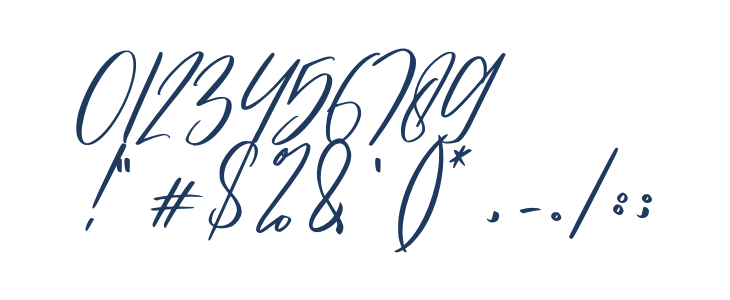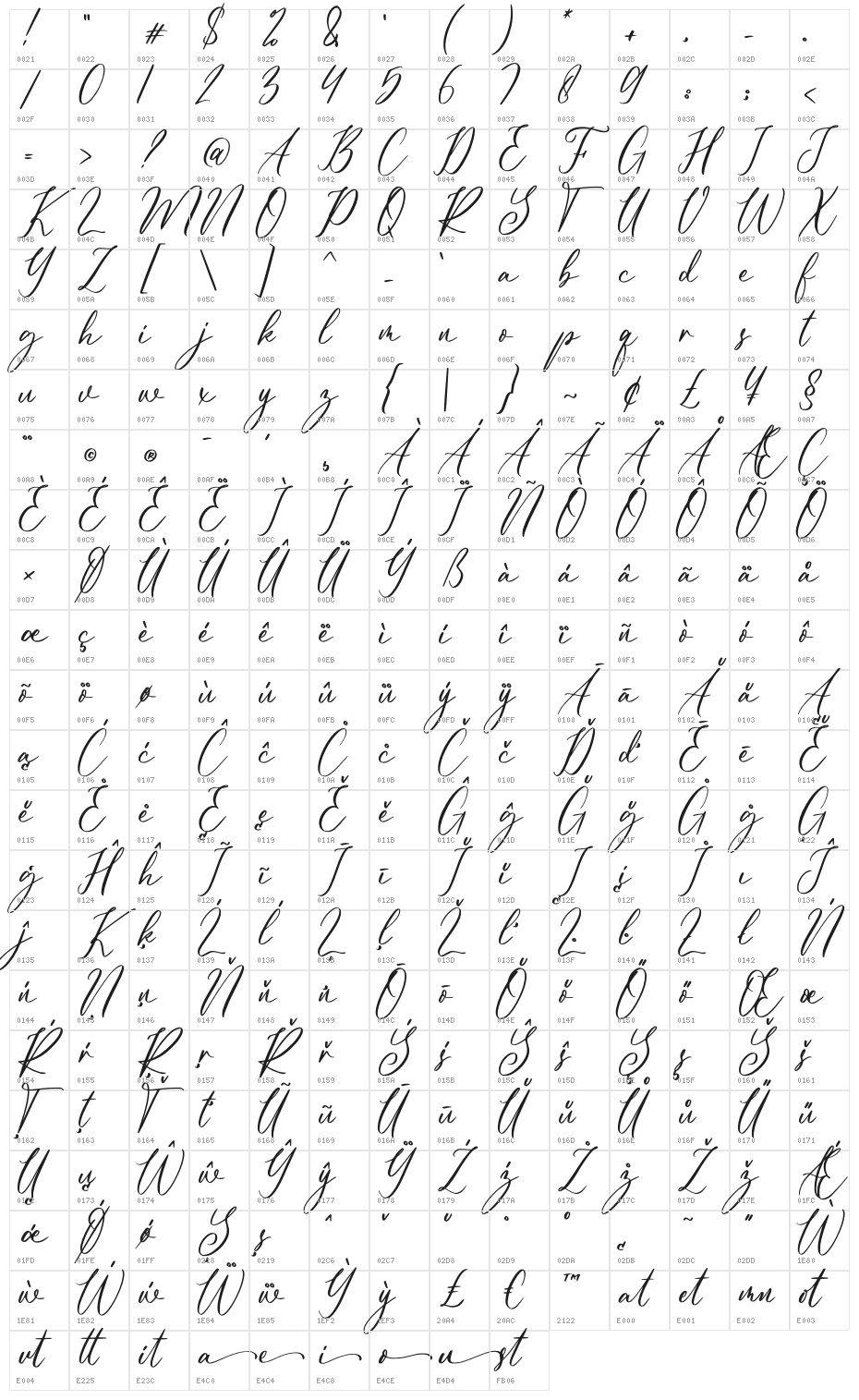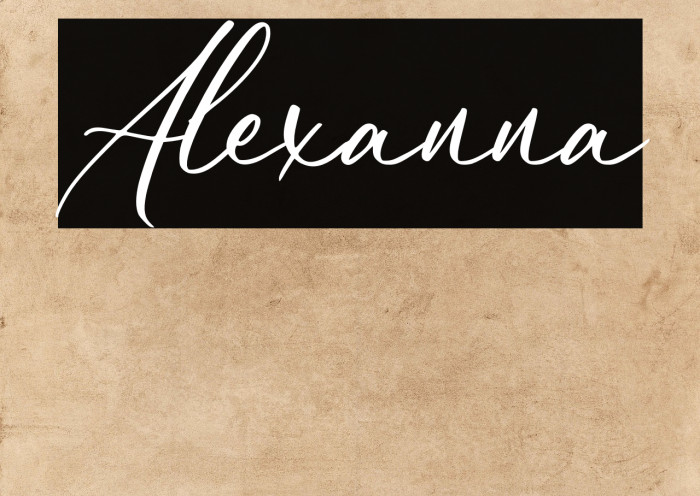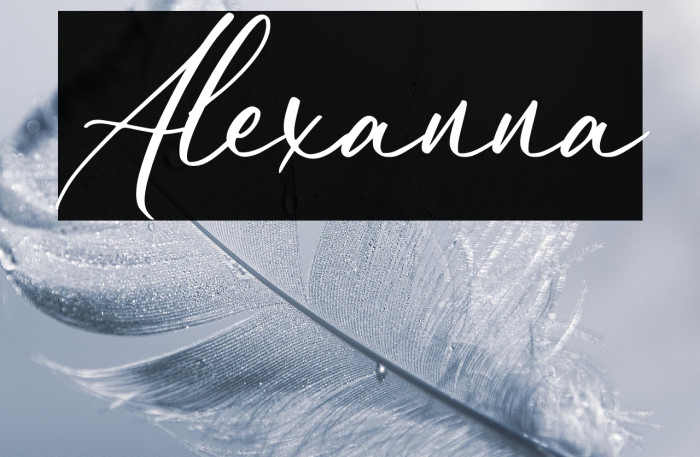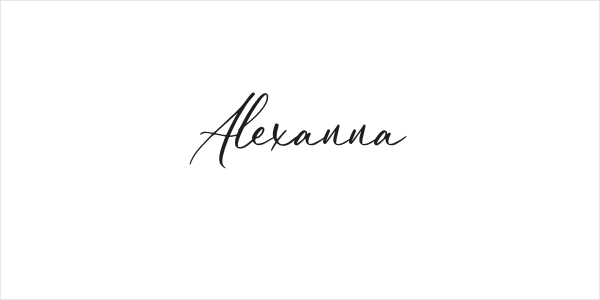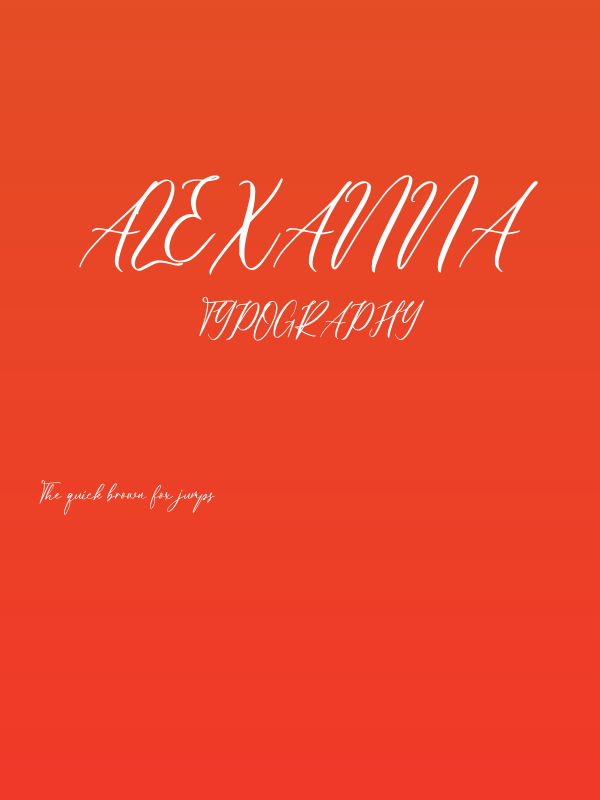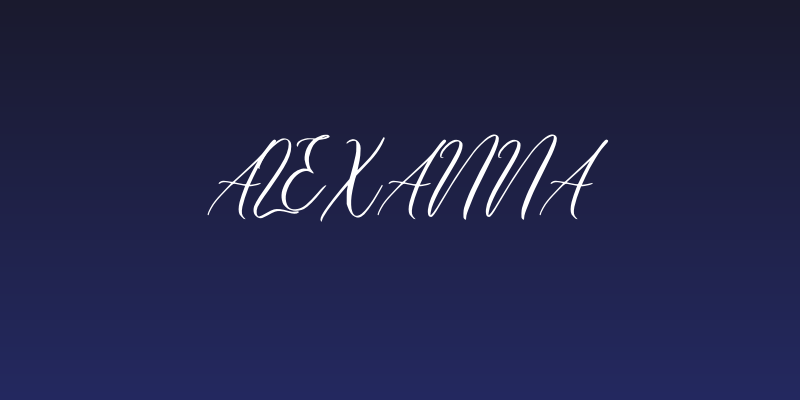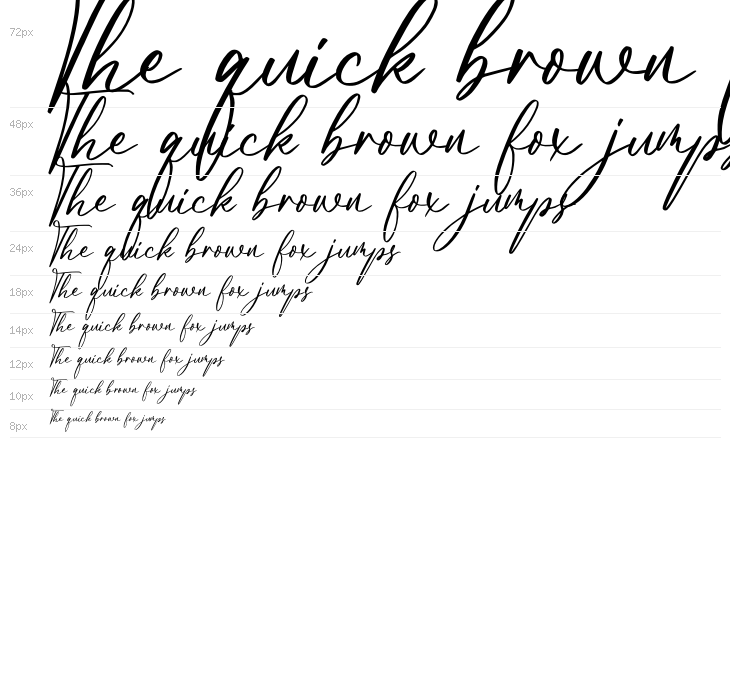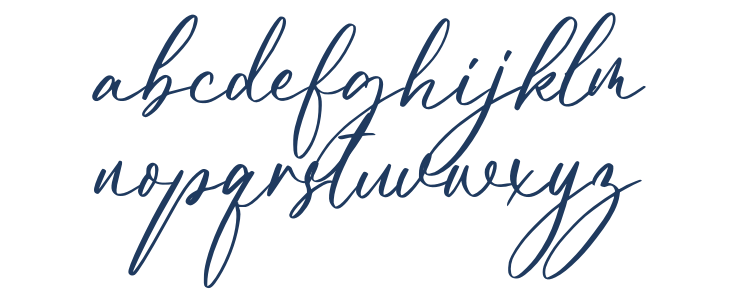
Alexanna Font
✎ Calligraphic
Alexanna Description
This elegant script font features fluid, cursive strokes that convey a sense of sophistication and grace. The letters are interconnected with smooth transitions, creating a harmonious flow throughout the text. The uppercase letters are ornate and slightly larger, providing a striking contrast to the more delicate lowercase letters. The numerals and special characters maintain the same fluidity, ensuring consistency across all elements. This font's design is reminiscent of traditional calligraphy, yet it maintains a modern touch with its clean lines and balanced proportions.
| Overall Style | Elegant |
| Use Case | Logos, Invitations, Branding |
| Proposed Projects | Ideal for wedding invitations, elegant branding, personal stationery, and upscale packaging. |